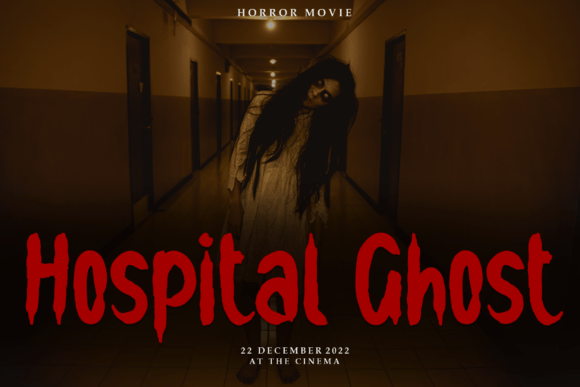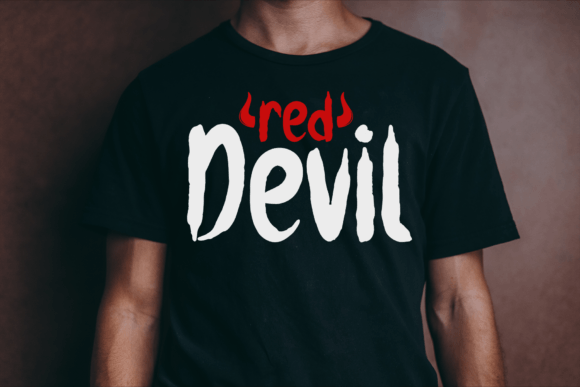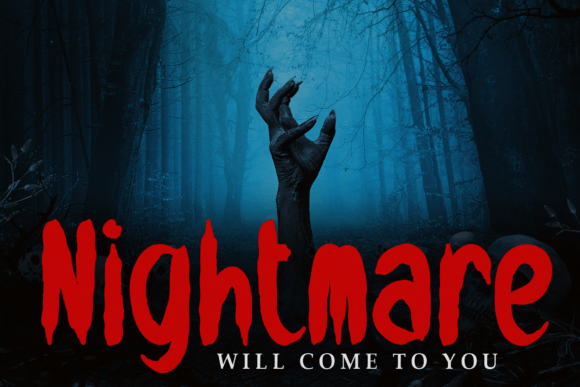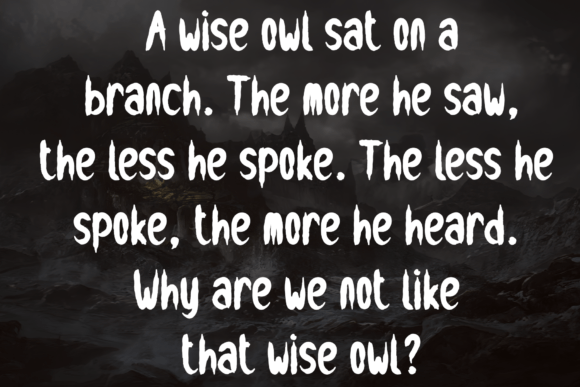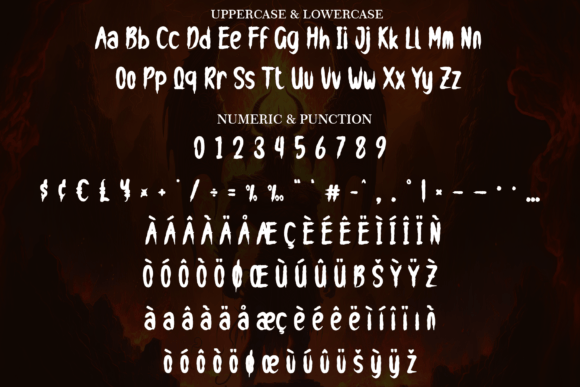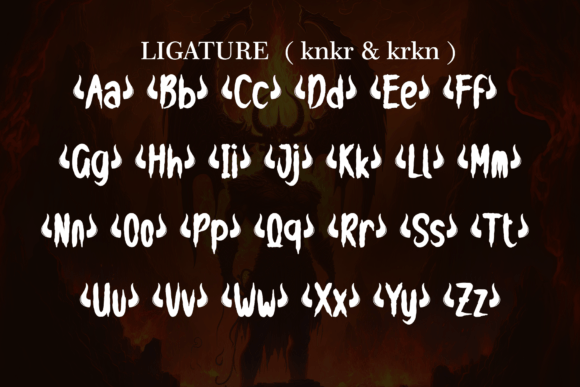
Introduction to Helldevil Font
Helldevil Font is an intense and daring display font that embodies the essence of rebellion.
With its sharp edges, bold strokes, and dramatic letterforms, this typeface commands attention and ignites a fiery spirit Perfect for edgy designs, album covers, and tattoo-inspired artwork, Helldevil Font adds a devilish charm and unleashes a powerful impact on any creative project.